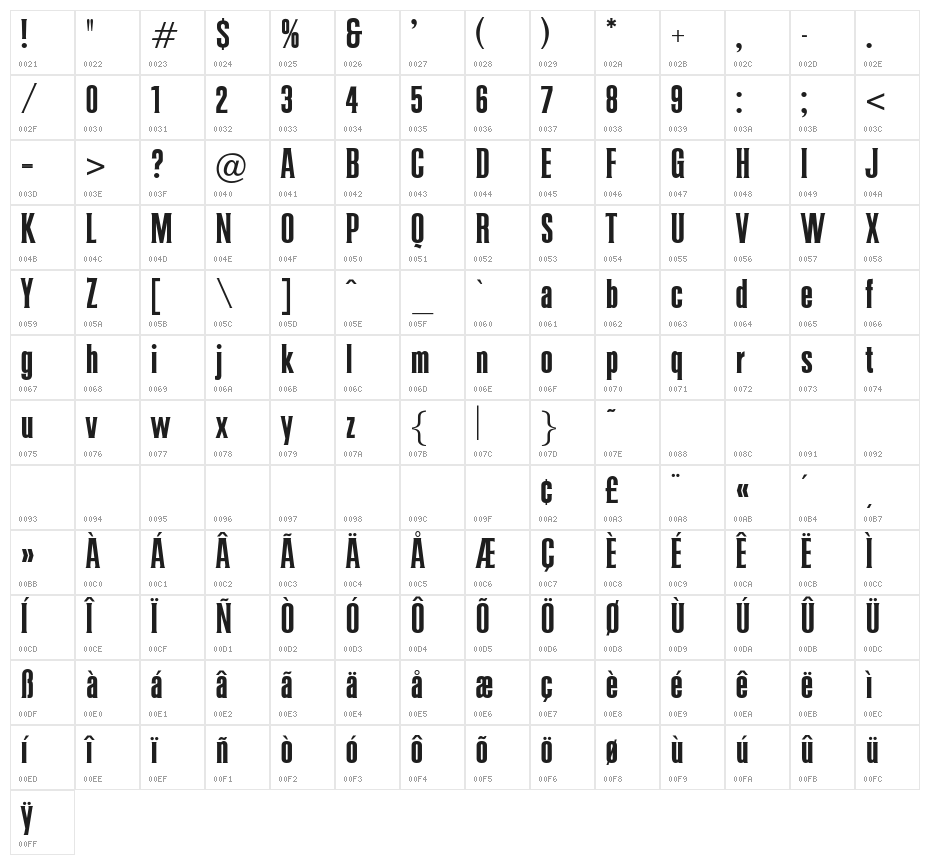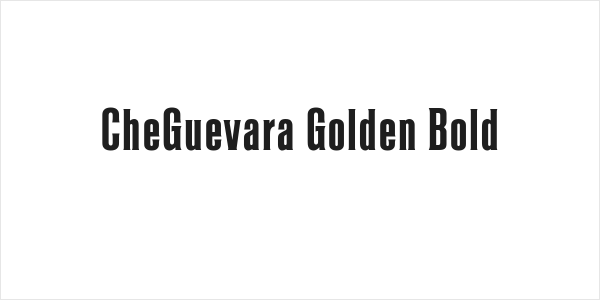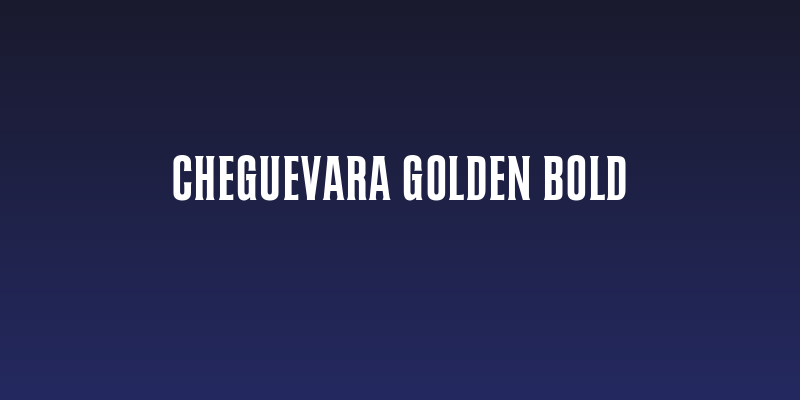
CheGuevara Golden Bold Font
CheGuevara Golden Bold Description
This font features a bold and striking design with a strong presence. The uppercase letters are tall and commanding, while the lowercase letters maintain a consistent weight that complements the overall boldness. The numerals are equally robust, ensuring readability and impact. Special characters are designed with the same bold aesthetic, making them stand out effectively. The font's style is reminiscent of vintage poster typography, with a modern twist that makes it suitable for contemporary designs. Its bold weight and condensed width make it ideal for headlines and attention-grabbing text.
| Overall Style | Vintage, Modern |
| Proposed Projects | Ideal for posters, branding, advertising, and any project requiring a strong visual impact. |